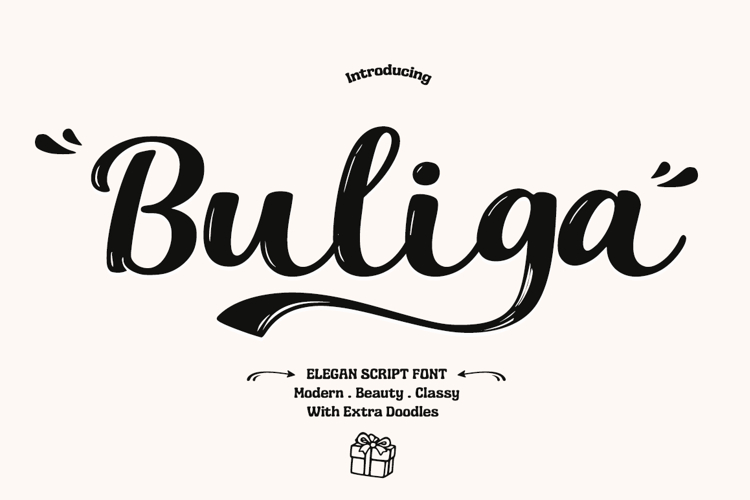
Simple stylish
Buliga is an elegant script font with a modern and classy touch, featuring smooth curves and balanced thick–thin strokes that create a bold yet refined look. Its natural flow and decorative swashes, combined with extra doodle elements, add character and visual charm to any design. Perfect for branding, logos, posters, packaging, apparel, wedding invitations, social media, and typography projects, Buliga delivers a stylish, playful, and premium appearance suitable for both digital and print use.